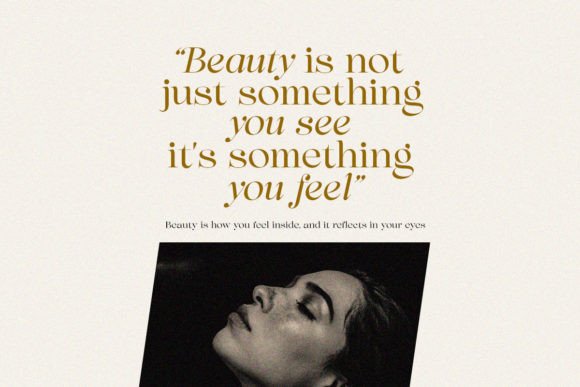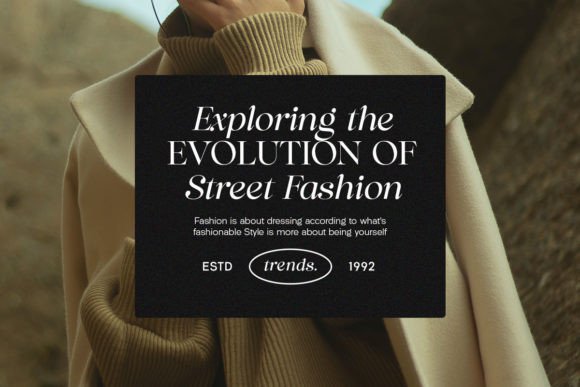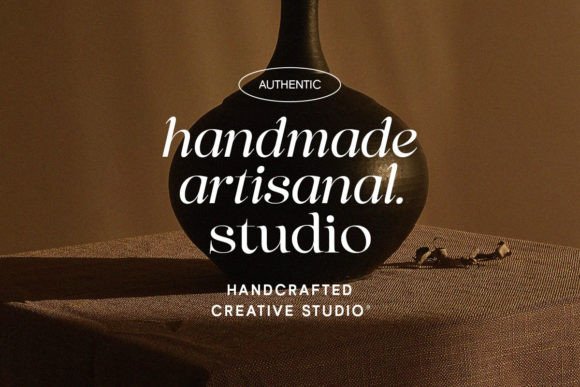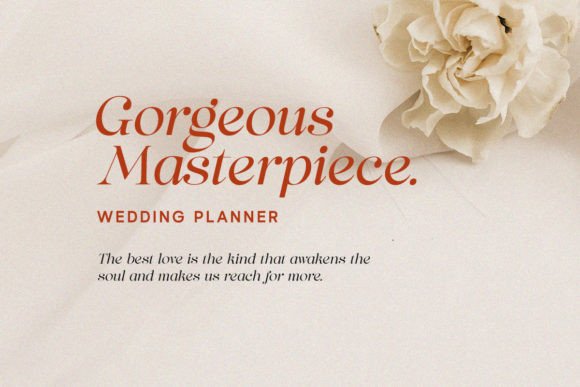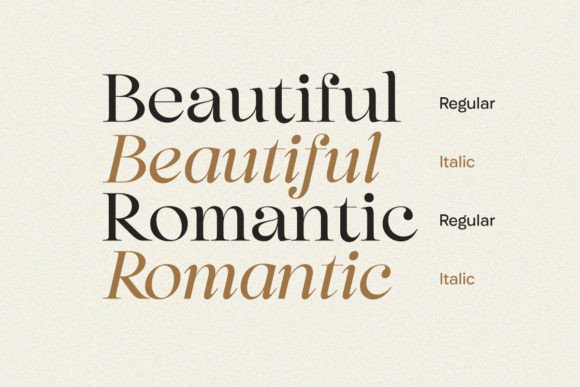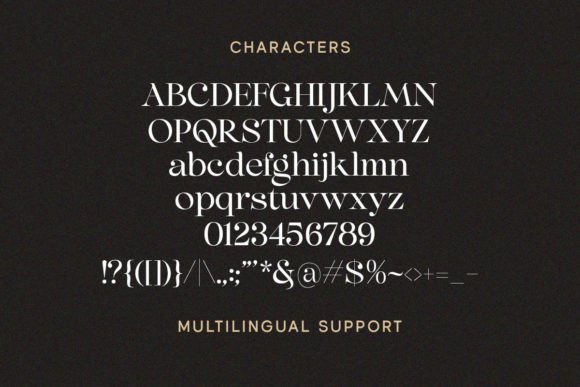
Introduction to Pure Malone Font
Have you ever stumbled upon a design that makes you pause and say, ‘Ah, now this is perfection’? For many of us, it’s the little things that make a big impact – a carefully chosen font, a subtle color palette, or a clever composition. One such design moment that often leaves me in awe is the use of the Pure Malone Font in high-end branding and editorial designs. Its sleek and refined letterforms seem to whisper elegance and sophistication, making it a go-to choice for designers who want to elevate their creative projects.
As a valuable design resource, the Pure Malone Font offers a level of sophistication that’s hard to replicate with other fonts. With its versatility and attention to detail, it’s perfect for designers who want to add a touch of class and sophistication to their work. Whether you’re working on a free download project or a high-paying client, this font is sure to impress.
One of the standout features of the Pure Malone Font is its high-quality design, which features a transparent background that allows for seamless integration with any design element. Whether you’re using it for a logo, headline, or body text, this font is sure to add a level of sophistication that’s unmatched by other fonts.
Pure Malone Font
- High-quality design resource ideal for creative projects, offering a unique and stylish look.
- Designed with a modern aesthetic, making it perfect for use in logos, branding, and digital design projects.
- Easy to customize and manipulate, allowing designers to tailor the font to their specific creative project needs.
Honest Review: Pure Malone Font
As a designer, I’m always on the lookout for high-quality fonts to enhance my creative projects. Recently, I had the chance to try out the Pure Malone Font, and I must say, it’s been a pleasant experience.
- Legibility: The Pure Malone Font is incredibly easy to read, even at small sizes.
- Character set: It has a wide range of characters, including accents and symbols, making it perfect for multilingual projects.
- Not suitable for bold headlines: While it’s great for body text, the Pure Malone Font may not be the best choice for bold headlines or titles.
- No transparent background option: This might be a limitation for designers who need a font with a transparent background for their creative projects.
Overall, I’m impressed with the Pure Malone Font. It’s a great design resource for anyone looking for a high-quality font for their creative project. While it may have some limitations, I believe it’s still a valuable addition to any designer’s toolkit.
The Pure Malone Font is a high-quality, free download font perfect for your creative project. It’s ideal for use in various design applications and offers a transparent background, making it easy to work with.
Tips for Getting the Most Out of Pure Malone Font
Experiment with different font sizes and colors to achieve the desired visual effect. Combine the Pure Malone Font with other design elements to create a unique and eye-catching design.
The Pure Malone Font is suitable for a variety of design projects, including: brochures, flyers, business cards, and social media graphics.
Alternatives to Pure Malone Font
Open Sans is a high-quality, free font designed by Steve Matteson. It’s a versatile font suitable for various creative projects, including logos, brochures, and websites. When to use: For body text and headings in digital designs where a clean and modern look is desired. Comparison: Open Sans is more straightforward and lacks the distressed texture of Pure Malone Font, making it ideal for designs requiring a more subtle approach.
Great Vibes is a script font designed by Javier Lopez. It’s a creative and elegant font perfect for invitations, logos, and other design projects where a personal touch is needed. When to use: For creative projects requiring a handwritten or cursive style. Comparison: Great Vibes is more decorative and less distressed than Pure Malone Font, making it suitable for designs that need a more refined look.